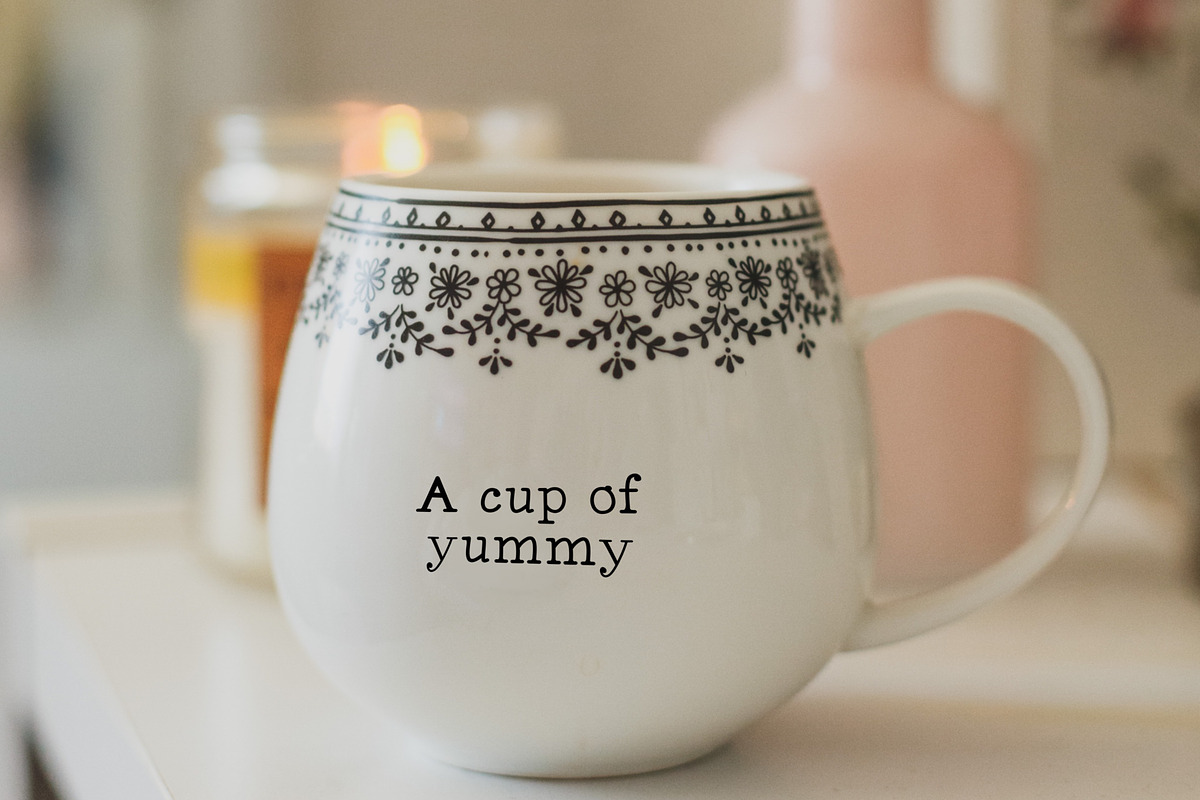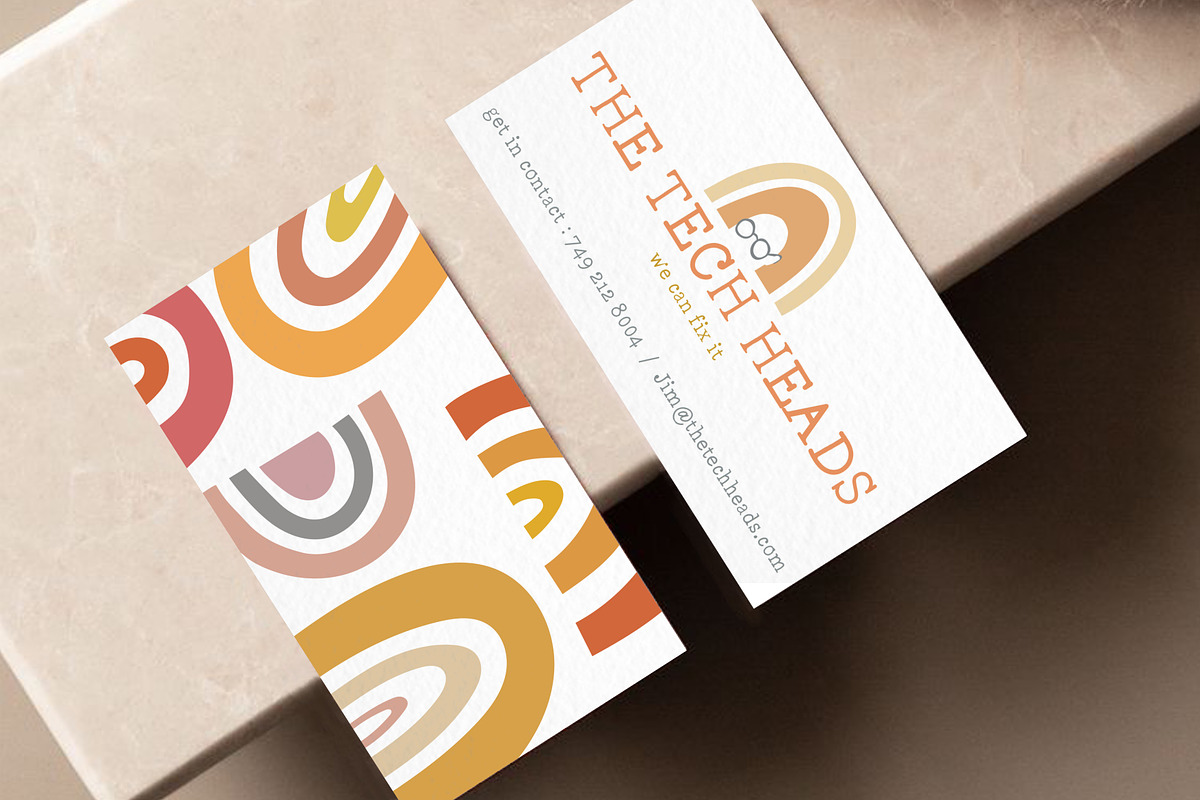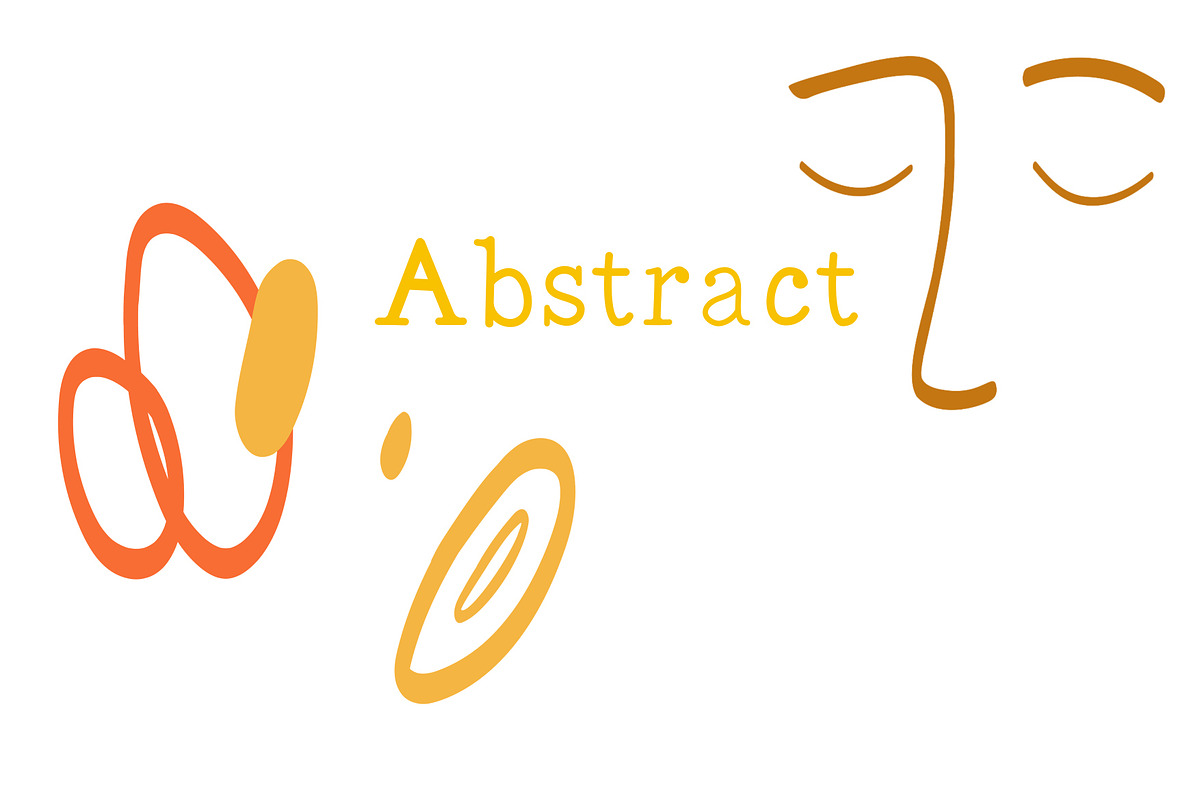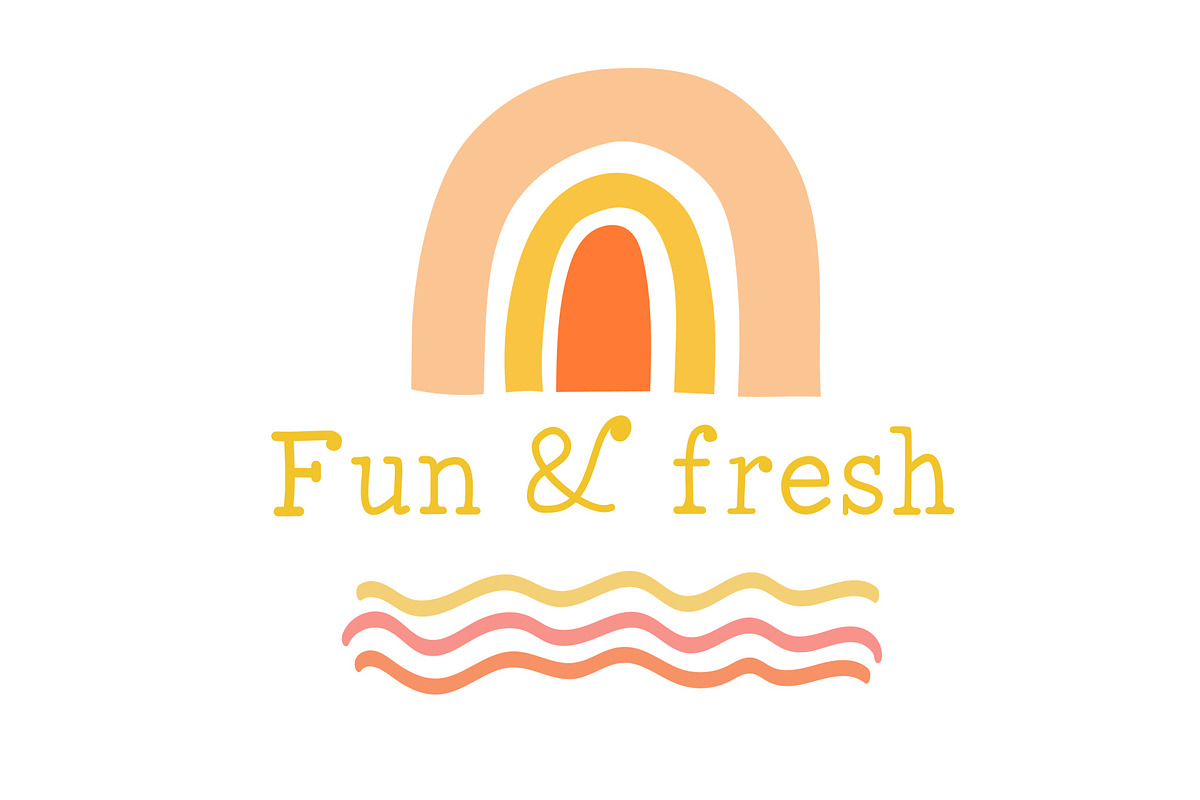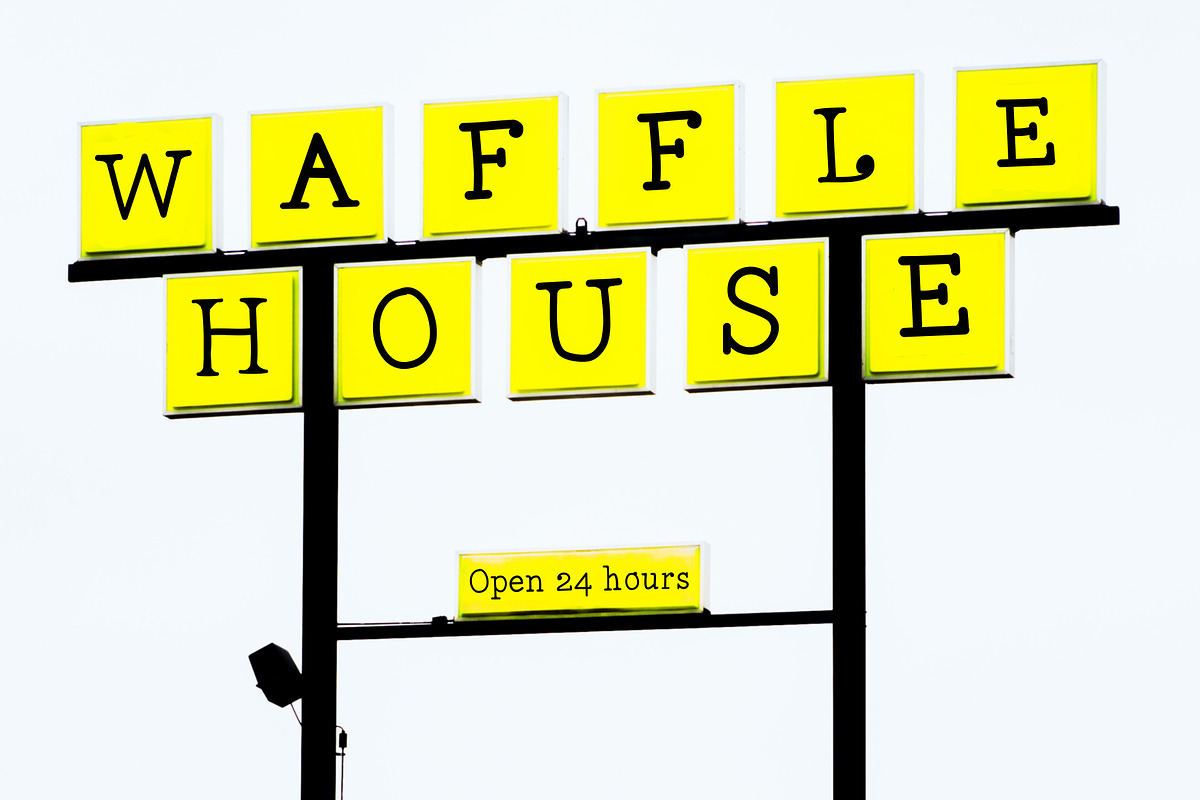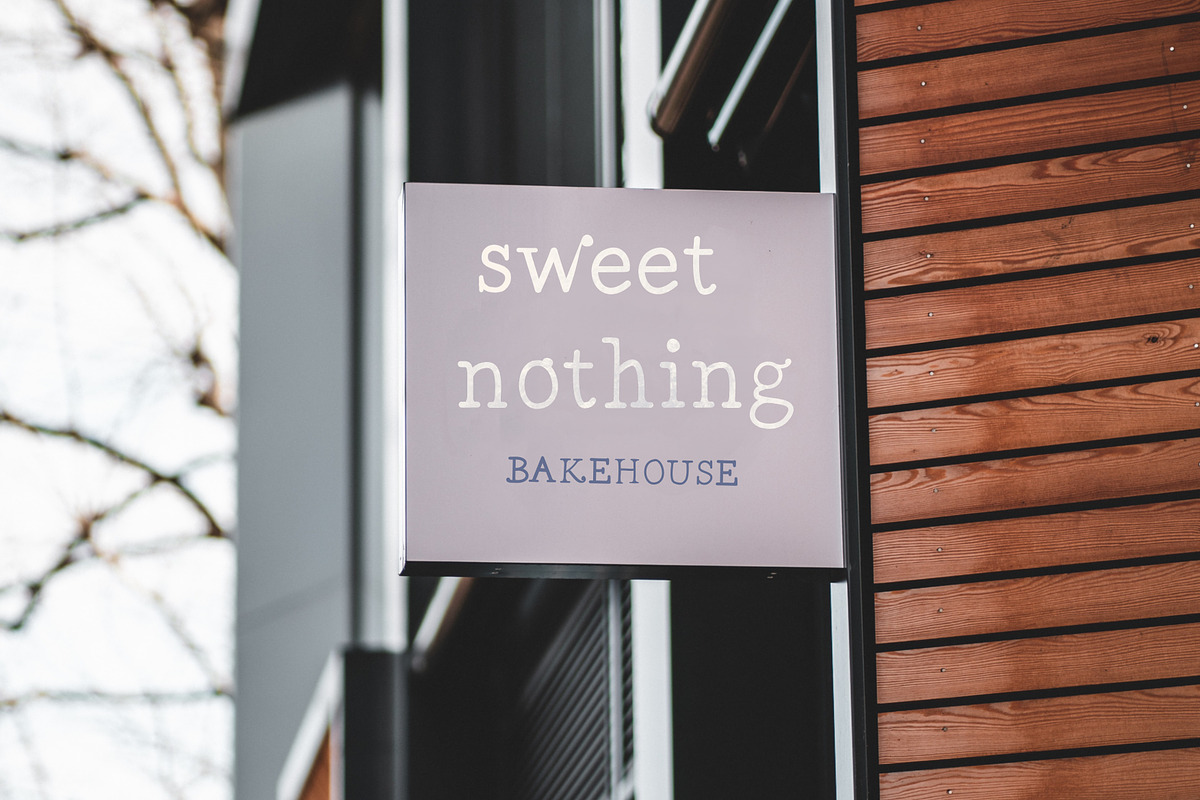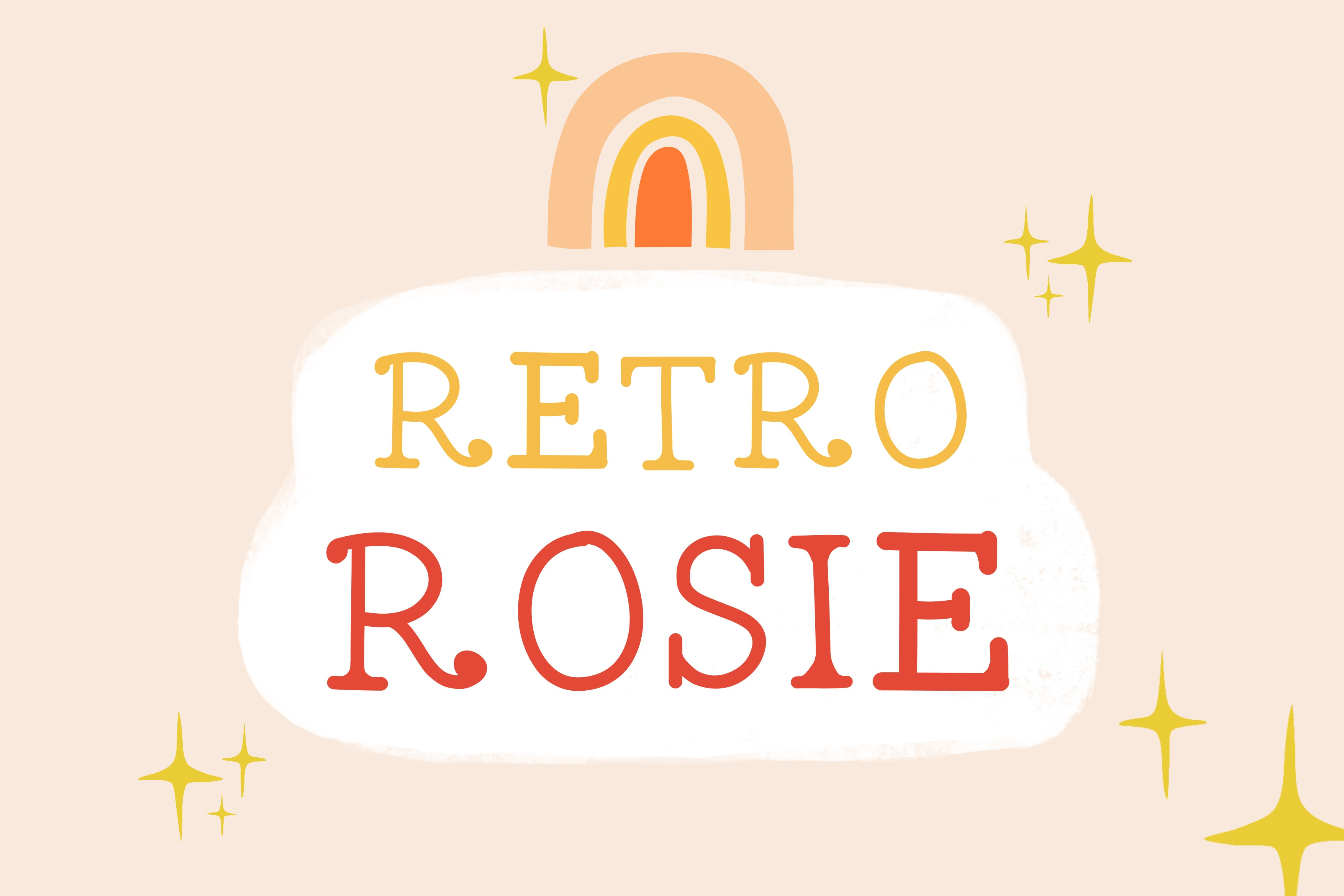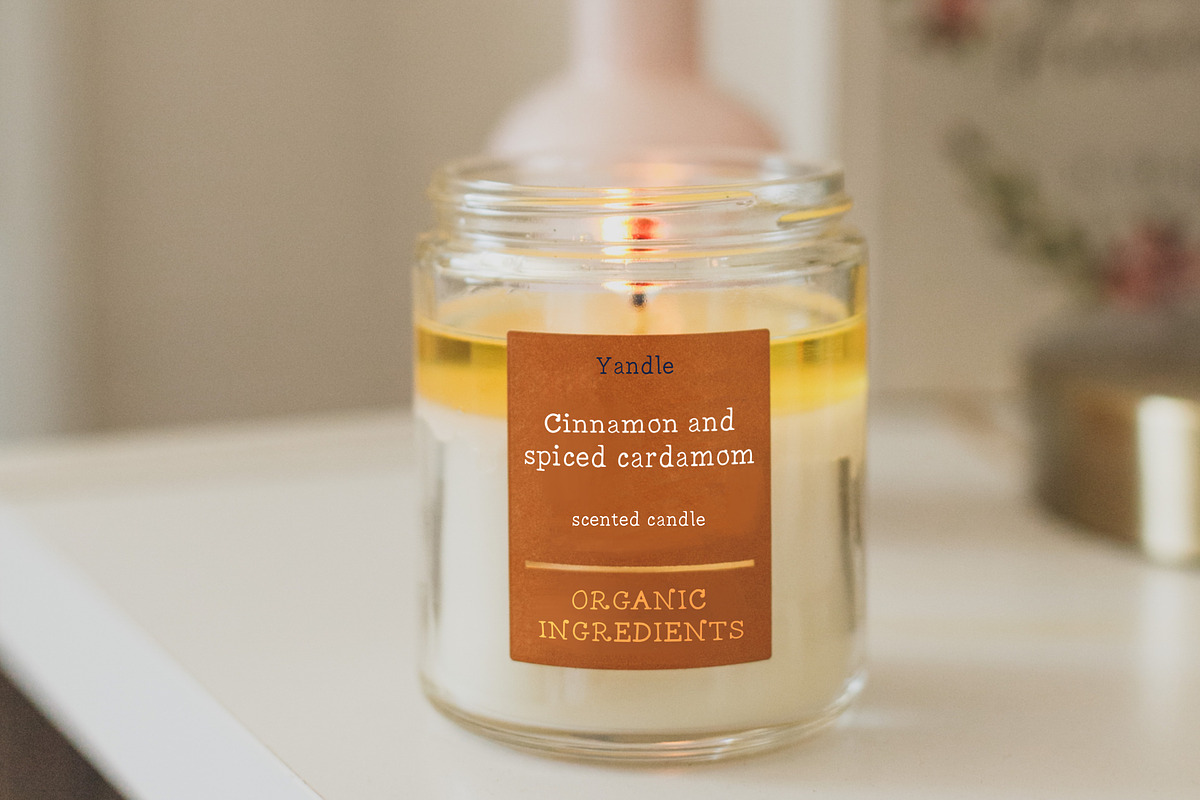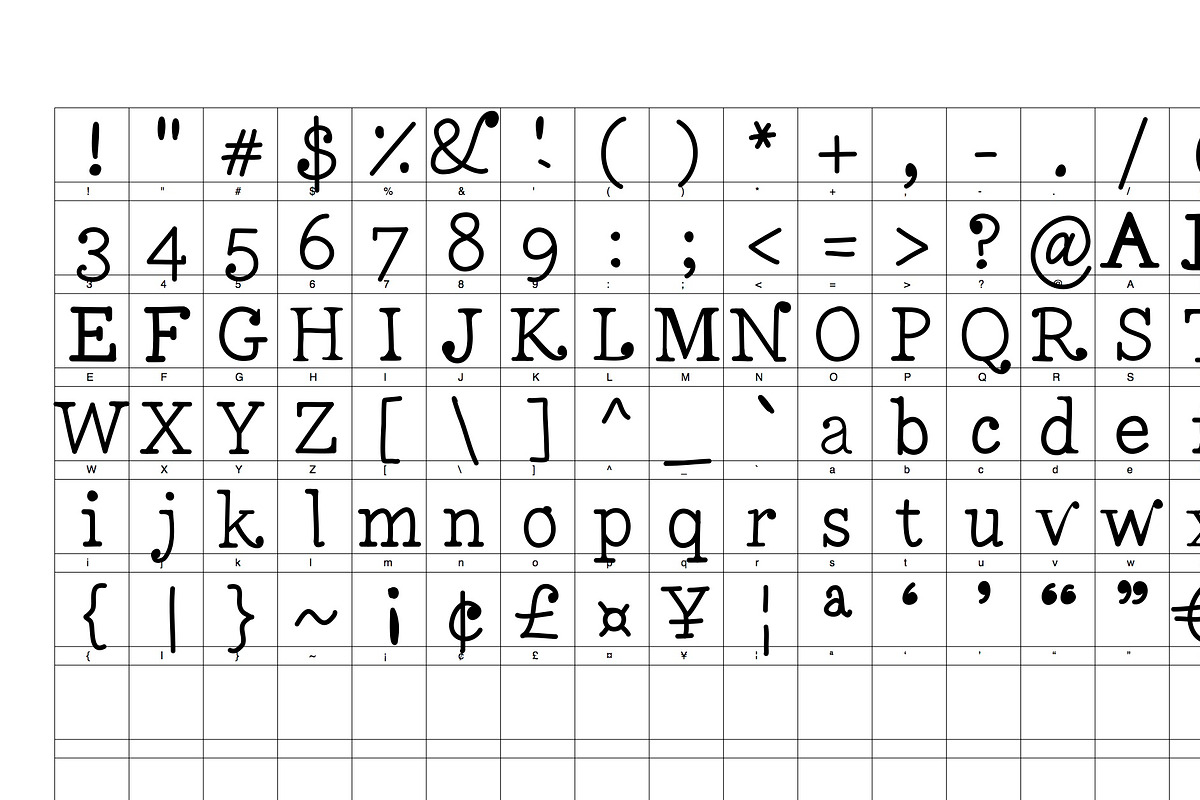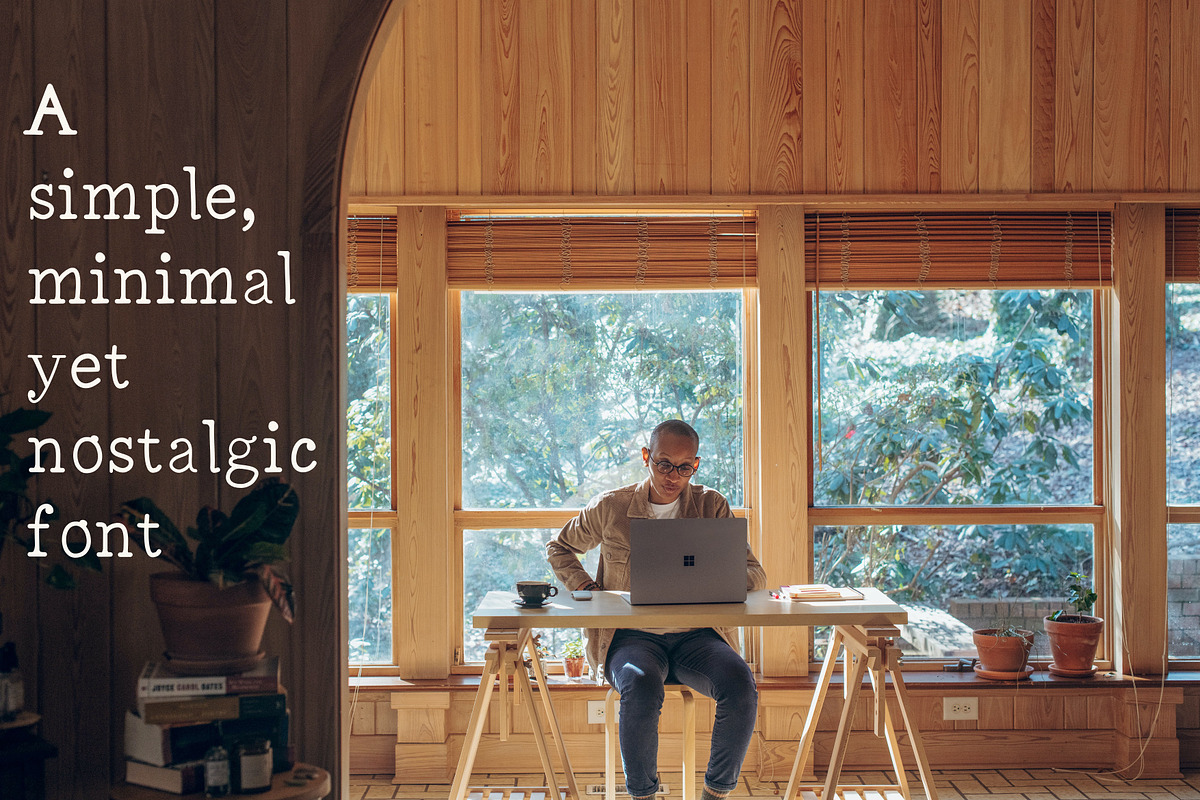
Retro Rosie Font
Funky, retro and minimal font, great for bringing a bit of personality to any design, logo, book, blog or website! (or literally anything else).
Hand made my me :)